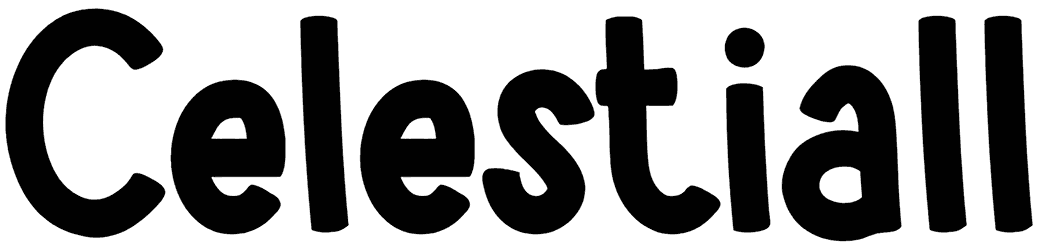
Celestiall Font
Celestiall font is a cartoon font designed with inspiration and can add a little softness to your texts. You can get an extra bold and joyous look from it and use it for any decorative headline or titles, comic books, comic shop flyers, and banners.
This one makes up for what it lacks in formality with a softly rounded end on its characters, and all the letters have a neat marker-written look on them.